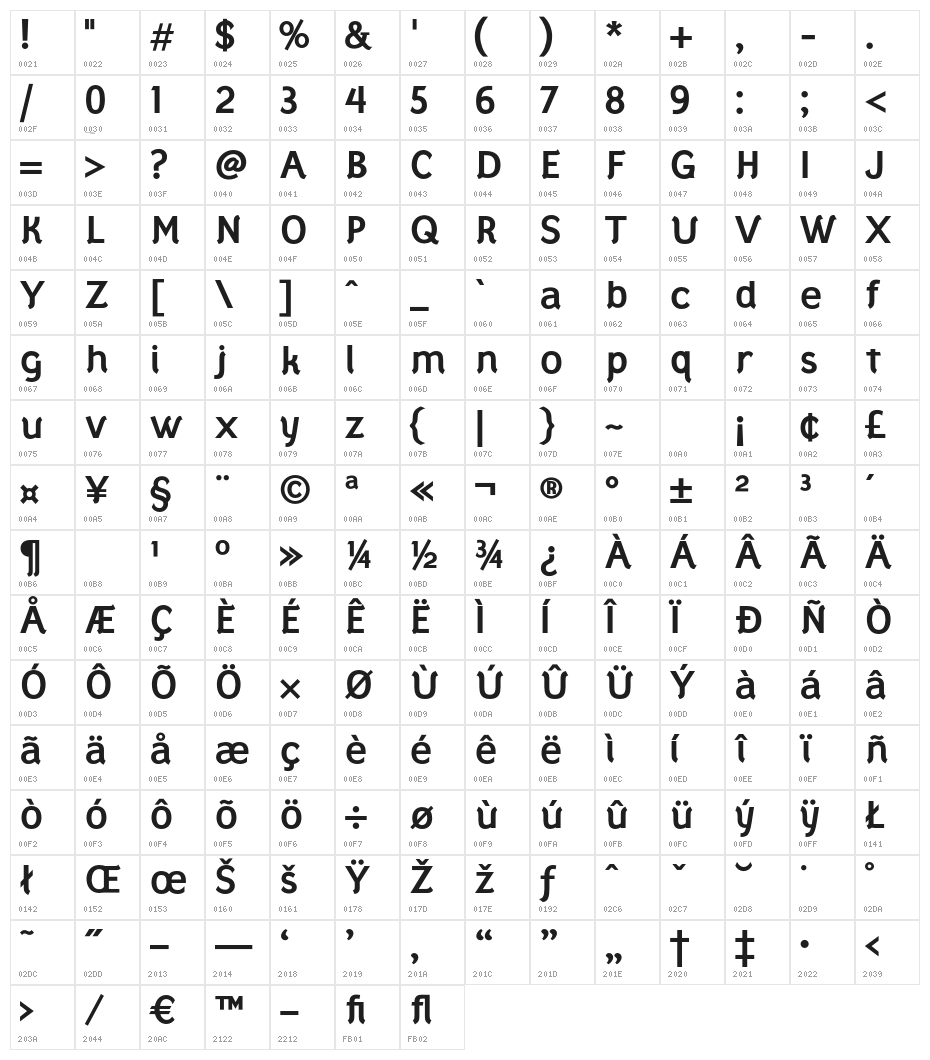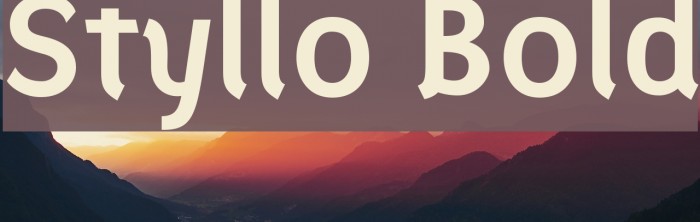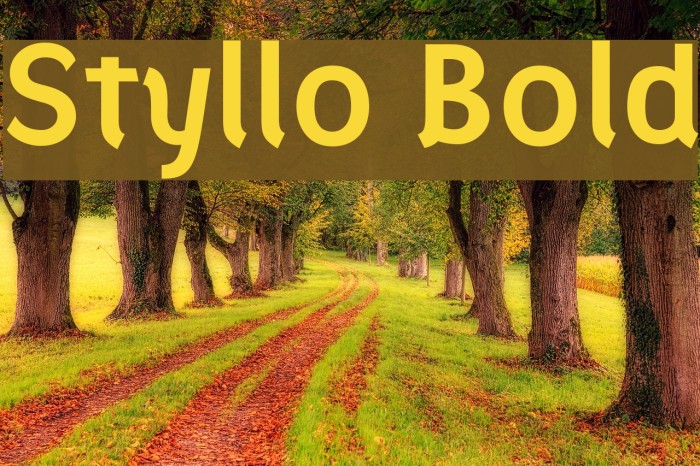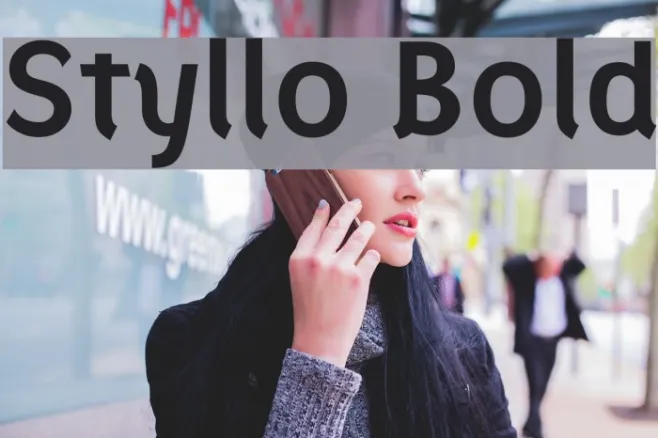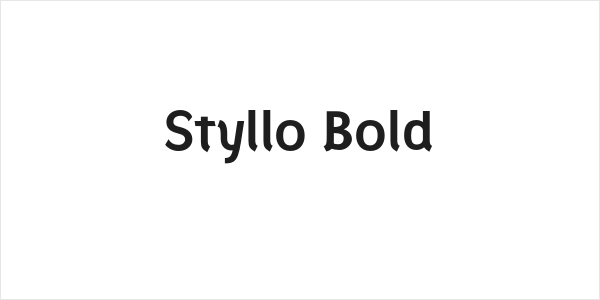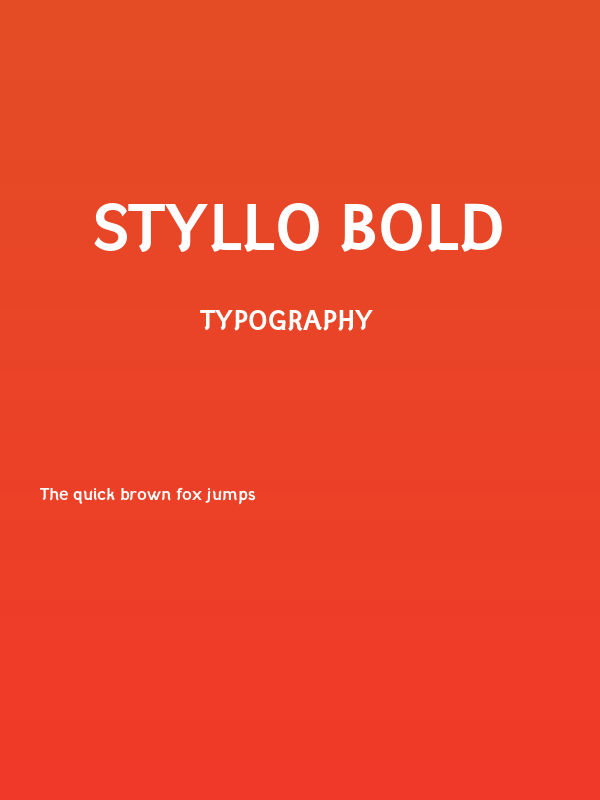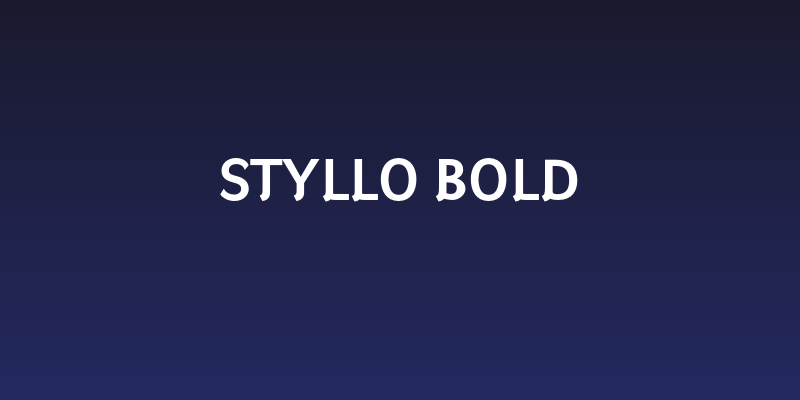
Styllo Bold Font
Styllo Bold Description
This font features a bold and modern design with clean, rounded edges and a strong presence. The uppercase letters are well-defined with a consistent stroke width, while the lowercase letters maintain a harmonious balance with slightly softer curves. The numerals are clear and easy to read, making them suitable for various applications. Special characters are included, adding versatility to the font's use. The overall style is contemporary, making it ideal for projects that require a bold and impactful look.
Genilson L. Santos
| Proposed Projects | Ideal for branding, headlines, posters, and digital media where a strong visual impact is needed. |